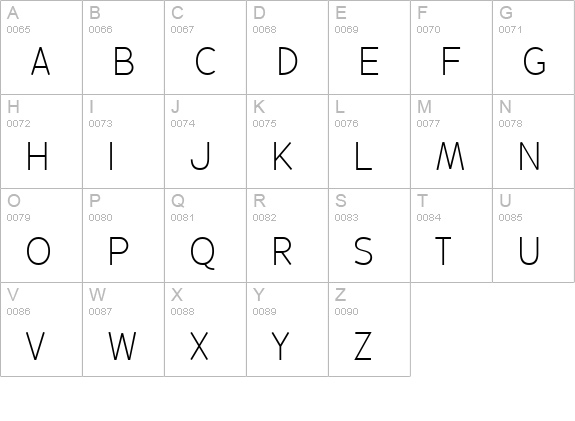
BacktalkSans BTN Lt font is a versatile and modern typeface that exudes elegance and sophistication. With its clean lines and subtle curves, it adds a touch of professionalism to any design project. This font is the perfect choice for a wide range of applications, from logos and branding materials to web design and print media. One of the standout features of BacktalkSans BTN Lt font is its free availability. It can be freely downloaded from FontsMarket.com, making it accessible for designers and creatives of all levels. This means that you can enhance your projects with this exceptional font without any cost, allowing you to unleash your creativity without limitations. The beauty of BacktalkSans BTN Lt font lies in its versatility. It is legible and clear, ensuring that your message is conveyed effectively, whether it's on a website, a brochure, or an advertisement. Its light weight adds a touch of subtlety, making it perfect for creating a delicate and refined look. Designed with attention to detail, BacktalkSans BTN Lt font offers a wide range of characters, including uppercase and lowercase letters, numerals, punctuation marks, and special symbols. Its consistent and balanced spacing ensures a harmonious flow of text, enhancing the overall readability. Whether you're a professional designer or someone who simply loves experimenting with typography, BacktalkSans BTN Lt font is a must-have in your font library. Its versatility, elegance, and the fact that it is freely available for download at FontsMarket.com make it an invaluable resource for all your design needs. So why wait? Enhance your projects with the timeless beauty of BacktalkSans BTN Lt font today!